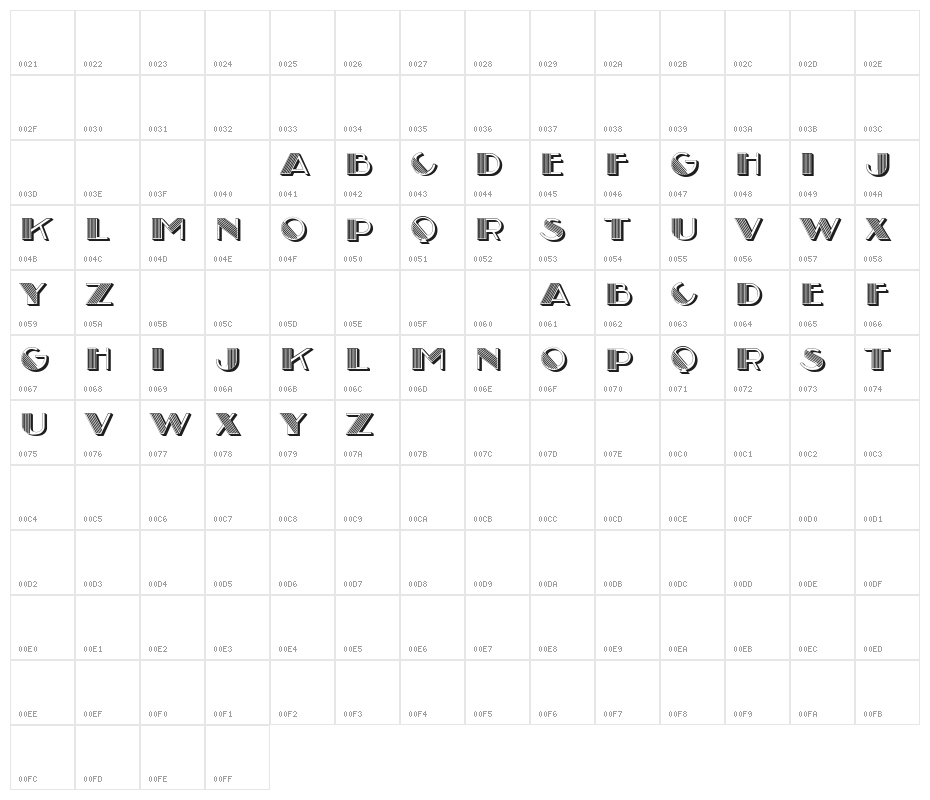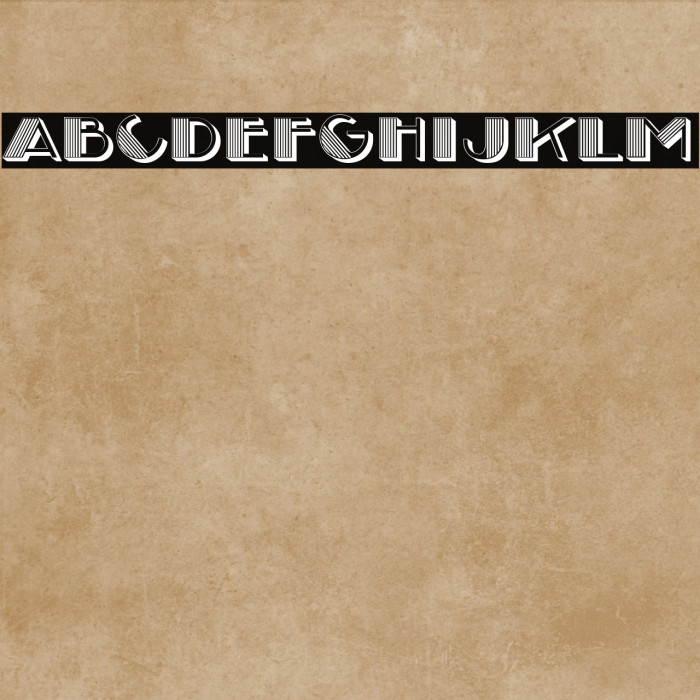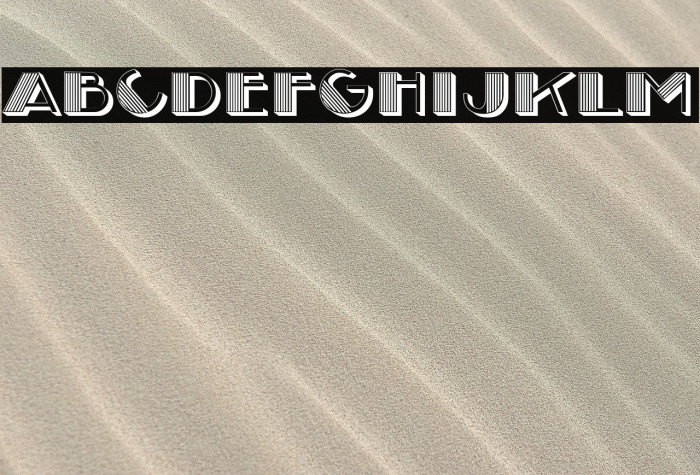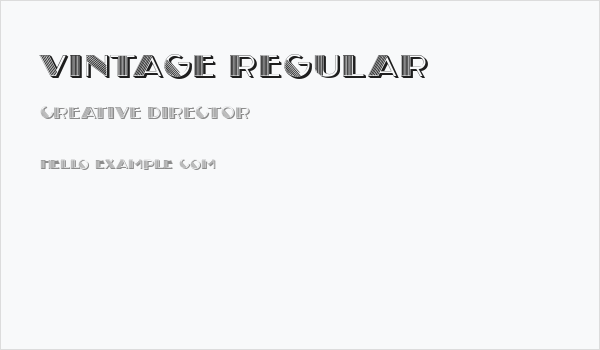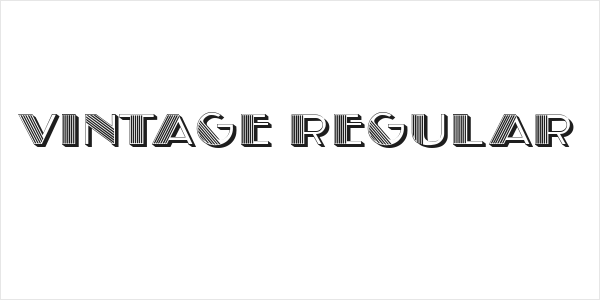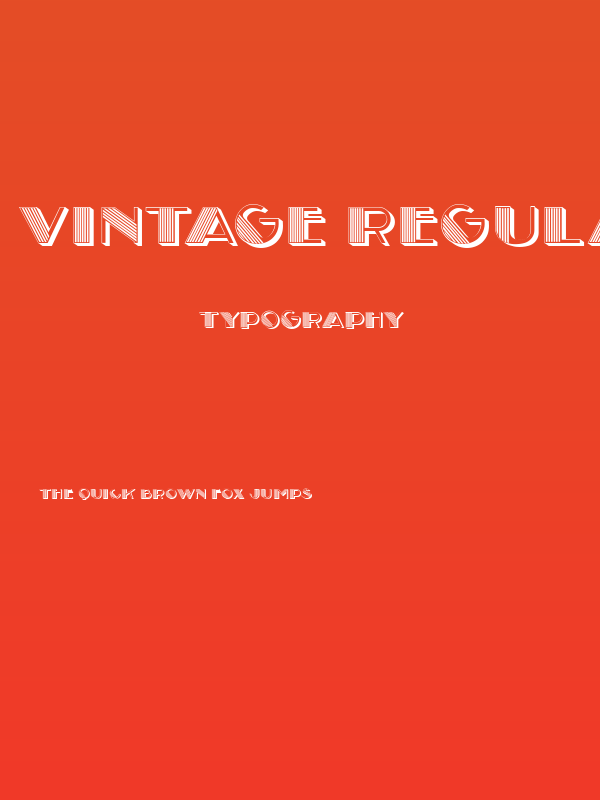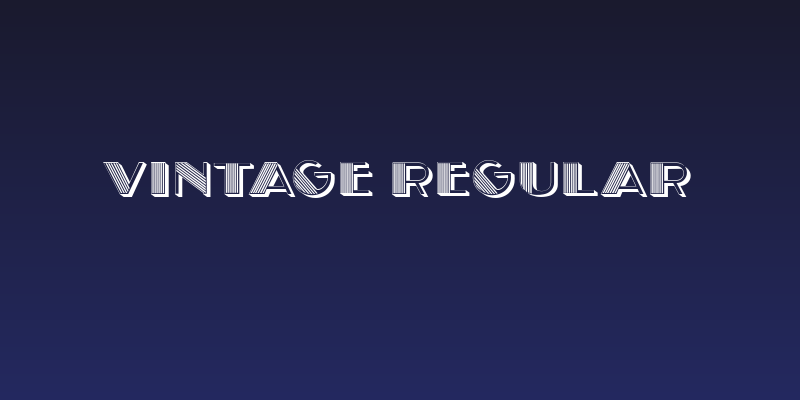
Vintage Regular Font
Vintage Regular Description
This font features a bold, decorative style with a unique striped pattern within each character. The uppercase letters are designed with a strong geometric influence, giving them a modern yet vintage appeal. The lines within the letters create a sense of depth and texture, making the font stand out in any design. The overall appearance is both striking and elegant, suitable for projects that require a touch of sophistication and creativity. The font's distinctive style makes it ideal for headlines, posters, and branding materials where a bold statement is needed.
| Proposed Projects | Ideal for use in headlines, posters, branding, and any design requiring a bold, vintage touch. |